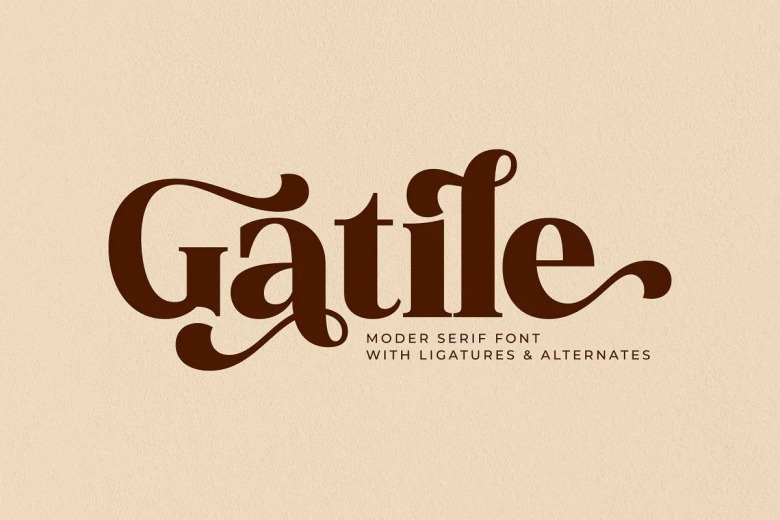
Gatile Font
Gatile is a modern & classic serif font with unique style for your professional design! This font fits as the logo, book or movie title, fashion brand, magazine, clothes and t-shirts designs just to simulate any custom lettering words base on this typeface. PUA encoded = There are lots of functions in it, for those who have programs that do not yet support the programming you can also access them easily.
Gatile Serif Font